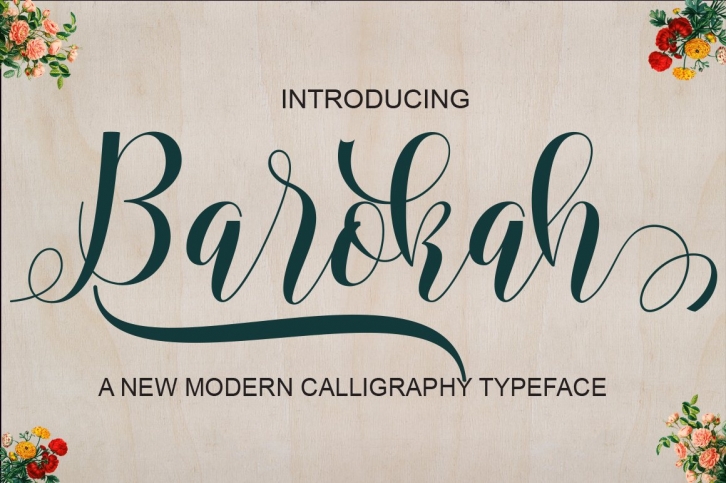
Barokah Script is a stylish calligraphy font that features a varying baseline, smooth line, classic and elegant touch. Can be used for various purposes.such as headings, signature, logos, wedding invitation, t-shirt, letterhead, signage, lable, news, posters, badges etc.
The Features of this fonts is:
• Stylistic Alternates
• PUA Unicode (Private Use Areas)
• Swash